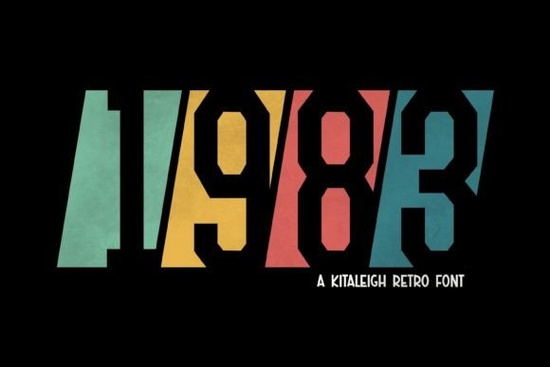
If you need a quick way to add vintage character to your designs, the 1983 Font delivers a tilted, boxed style that immediately reads as classic eighties nostalgia. Instead of hunting through scattered archives, this single typeface gives you ready-to-use retro lettering that works smoothly in modern design software. Crafters, print-on-demand sellers, and small business owners can drop it into logos, apparel graphics, and digital mockups without spending hours adjusting spacing.
What makes this retro typeface stand out?
The charm comes from its deliberate tilt and contained box structure. Each character sits inside a clean geometric frame, while the slight forward lean creates movement without sacrificing readability. Many vintage-inspired fonts lose their shape when scaled down, but this one keeps the lines crisp. Your text stays sharp on both screen previews and physical prints.
Consistent weight across letters makes it easier to align text blocks and maintain balance when stacking words. If you have struggled with uneven baselines in retro lettering, you will appreciate how predictable this layout feels.
Which projects work best with a tilted boxed style?
Because the letterforms carry built-in structure, they perform best when you let them breathe. Here are practical applications where the style naturally fits:
- Apparel graphics: T-shirt fronts and hoodie backs that need a bold headline
- Print-on-demand items: Mugs, tote bags, and stickers where short phrases need instant visual weight
- Event posters: Market days or retro-themed announcements that require a clear focal point
- Small business branding: Cafe menus and packaging labels that benefit from a warm, throwback aesthetic
Keep your text short. Two to four words usually give the best result. Longer sentences can feel crowded because the boxed shapes take up more horizontal space.
How do I pair it with other display fonts?
Contrast is your friend. Since this typeface carries strong geometric framing, pair it with simpler lettering for supporting text. A clean sans serif or light script will balance the visual weight without competing for attention.
Start with a simple mockup, adjust your tracking by 10–15 points if the boxes feel too tight, and let the retro shape do the heavy lifting. When you keep the layout clean and the message short, the vintage feel comes through naturally.